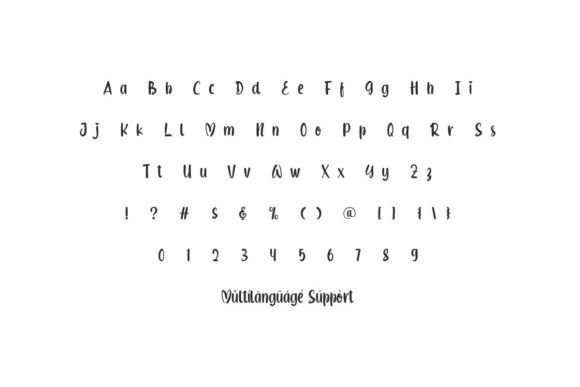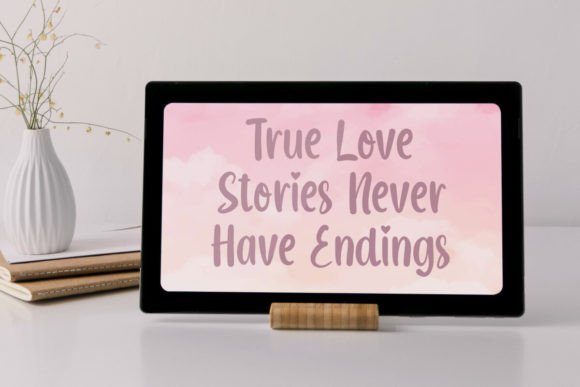
Pretty Love Font is a lovely handwritten display font with playful fun style. This font has a beautiful handwritten look that will blend in perfectly with any design you create, such as brand logo, brochure, business card, custom design, frame art, invitation, label, packaging design, poster, quote, screen printing, signage, stationery, website, and more!
Pretty Love Font